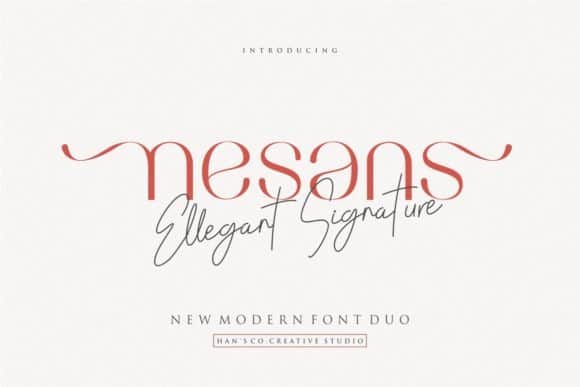
Nesans Sans Serif Font
Nesans Sans Serif Font is a cute scrapbooking font ! It’s incredibly elegant and beautifully rounded sans serif font that will add a timeless look to any design project!. Made from font designer named HansCo. It comes in lowercase and uppercase, numbers, special characters & multilingual characters. It’s perfect for logos/logotype, headlines/headers and layout design.… Continue readingNesans Sans Serif Font